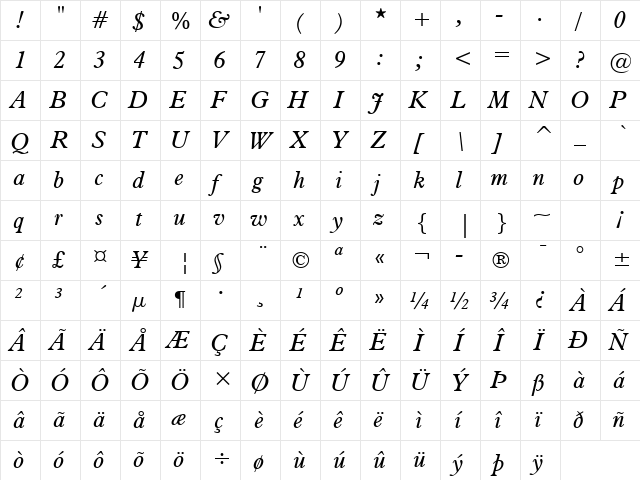
Aldine721 BT Italic
Design Context for Aldine721 BT Typeface
Aldine721 BT takes a measured approach to typography — its balanced proportions and neutral character make it a reliable workhorse for both digital and print work. Its italic angle brings a sense of urgency and motion to the letterforms.
Pro Tip: Try Aldine721 BT for annotation and caption copy alongside an upright companion — the contrast in angle creates a dynamic but ordered typographic system.